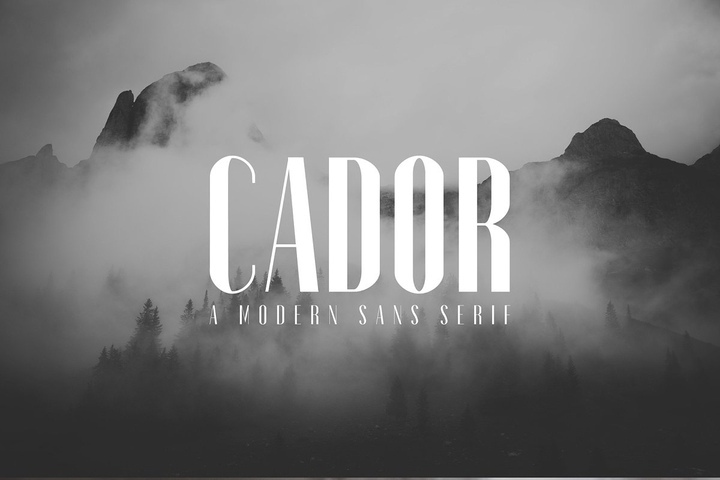
Cador Sans Serif Font Family Pack
Cador Sans Serif Font Family Pack is perfect for modern corporate branding, professional website interfaces, clean mobile applications, contemporary business presentations, tech startup communications, minimalist marketing materials, digital advertising campaigns, and sophisticated user experiences.
Cador Sans Serif Font Family Pack is exciting because it combines geometric precision with refined humanist warmth, featuring optimized letterforms and balanced proportions that create exceptional clarity while maintaining approachable professionalism. Its contemporary character projects reliability and innovation across all modern communication platforms.
Cador Sans Serif Font Family Pack family includes multiple weights from light to bold with matching italic variations, offering designers comprehensive font styles for complete typographic solutions and flexible hierarchical systems across diverse applications.
Digital professionals consistently select Cador Sans Serif Font Family Pack for its exceptional versatility in screen-based applications and corporate communications. The font's optimized rendering capabilities and contemporary styling deliver crystal-clear display quality while maintaining distinctive personality that supports strong brand recognition. Its comprehensive weight range provides excellent foundation for complex information hierarchies and professional presentation requirements.
The Cador Sans Serif Font Family Pack download includes extensive Unicode support covering multiple language sets and specialized business symbols for international project compatibility. This broad character coverage ensures seamless implementation across global markets and multilingual corporate applications. The font's technical precision and consistent baseline alignment make it particularly valuable for professional communications and cross-platform brand consistency requirements.
Contemporary organizations appreciate Cador Sans Serif Font Family Pack's ability to communicate professionalism while maintaining modern appeal and user accessibility. Its balanced personality works equally well in conservative corporate environments and progressive business contexts, making it an indispensable typography resource for companies seeking to establish credible, contemporary brand presence through superior typographic communication and reliable professional standards.